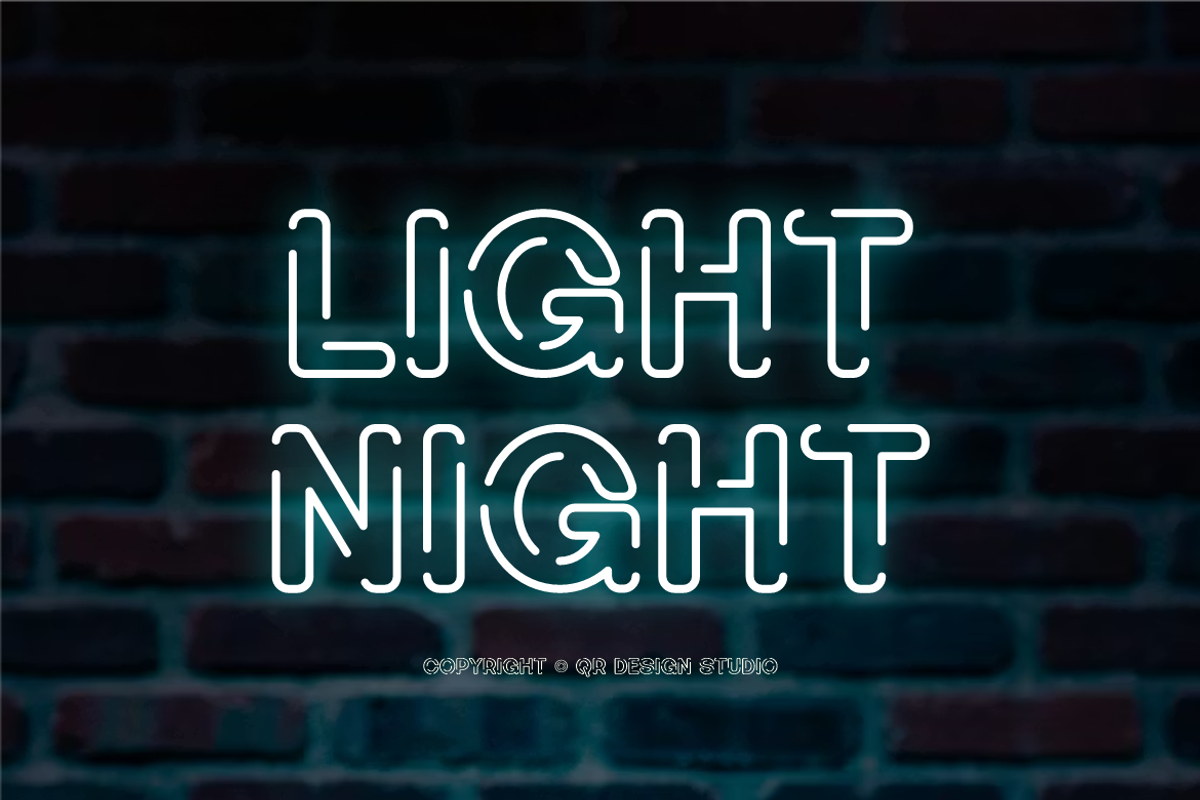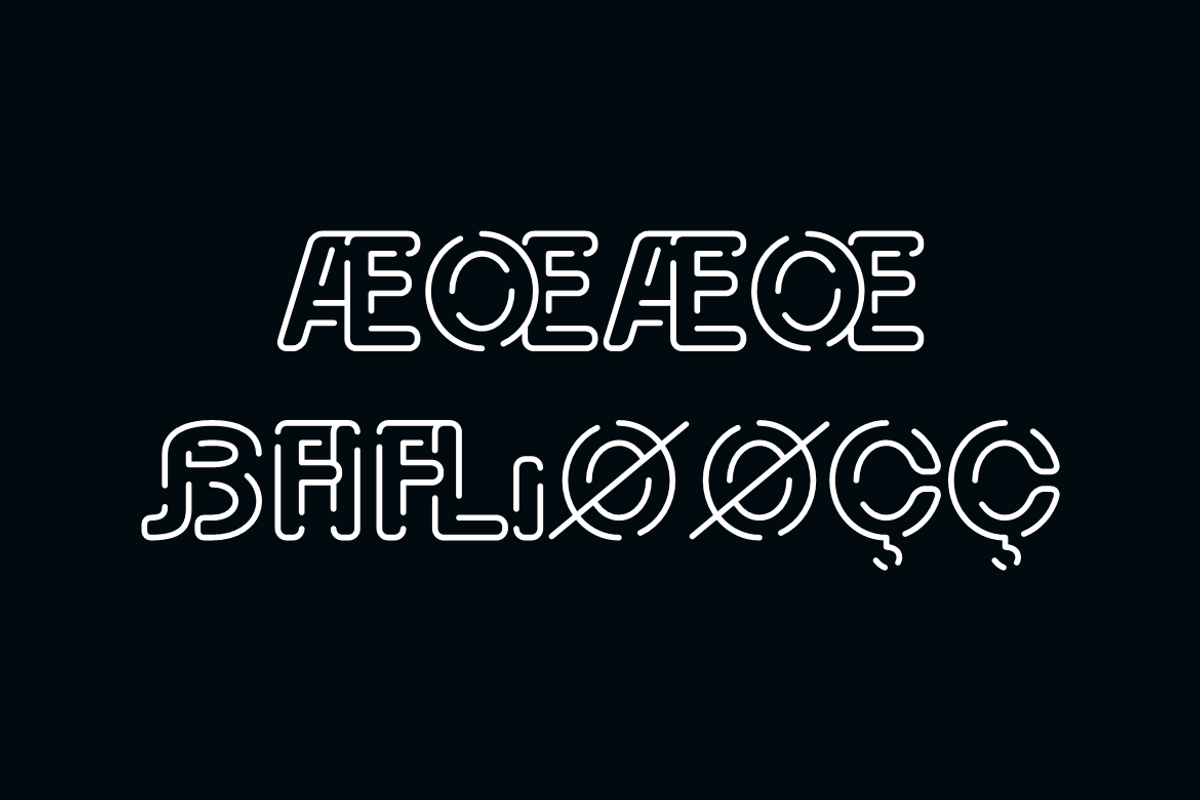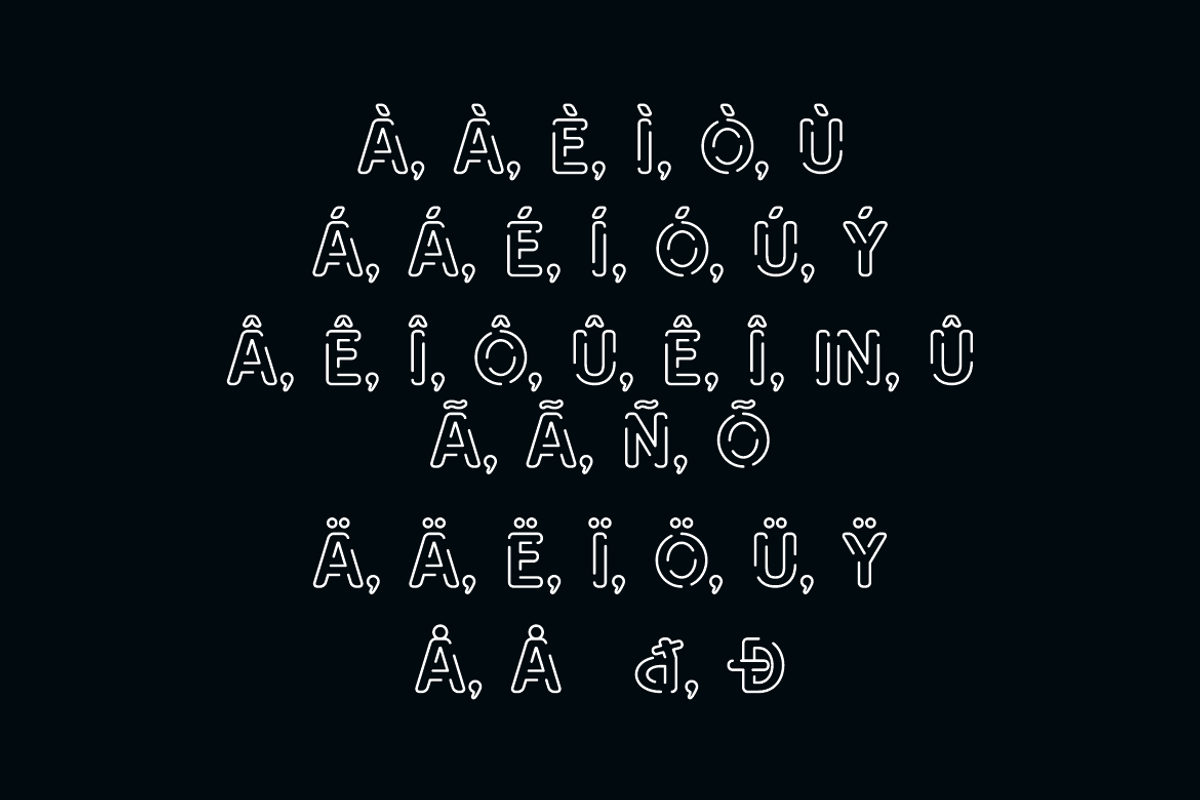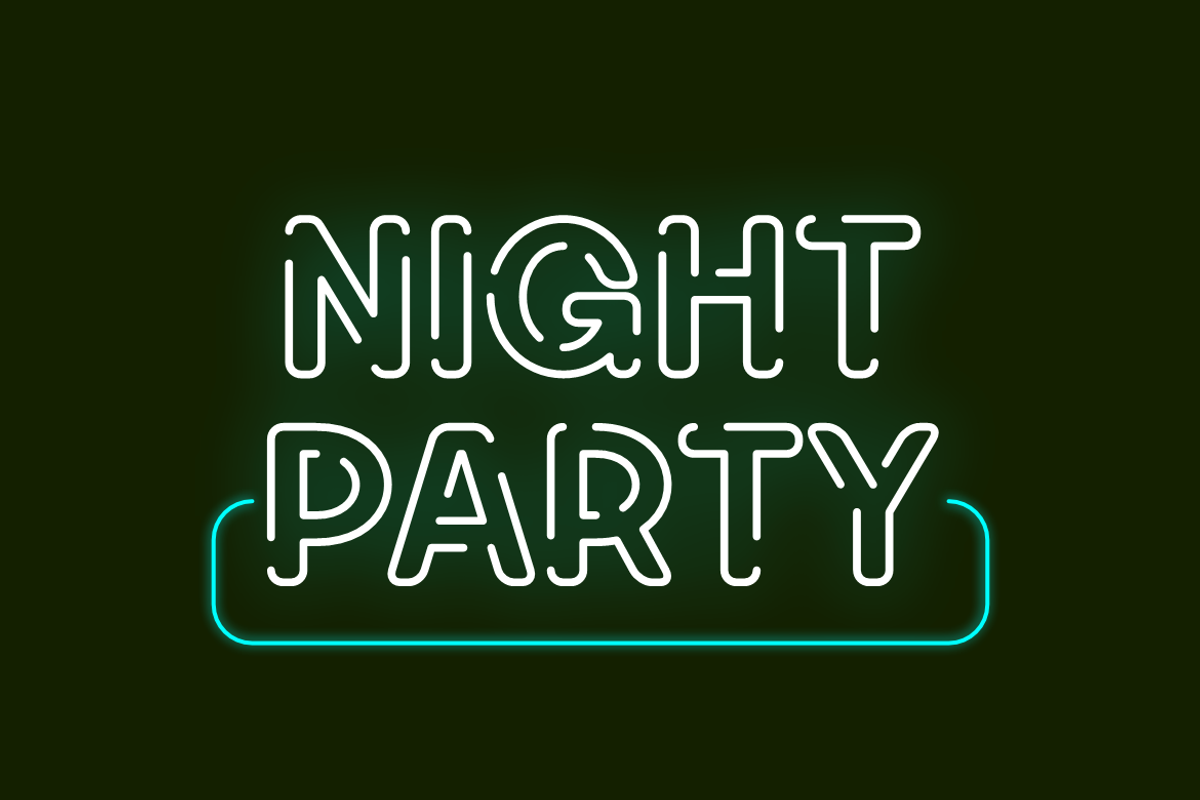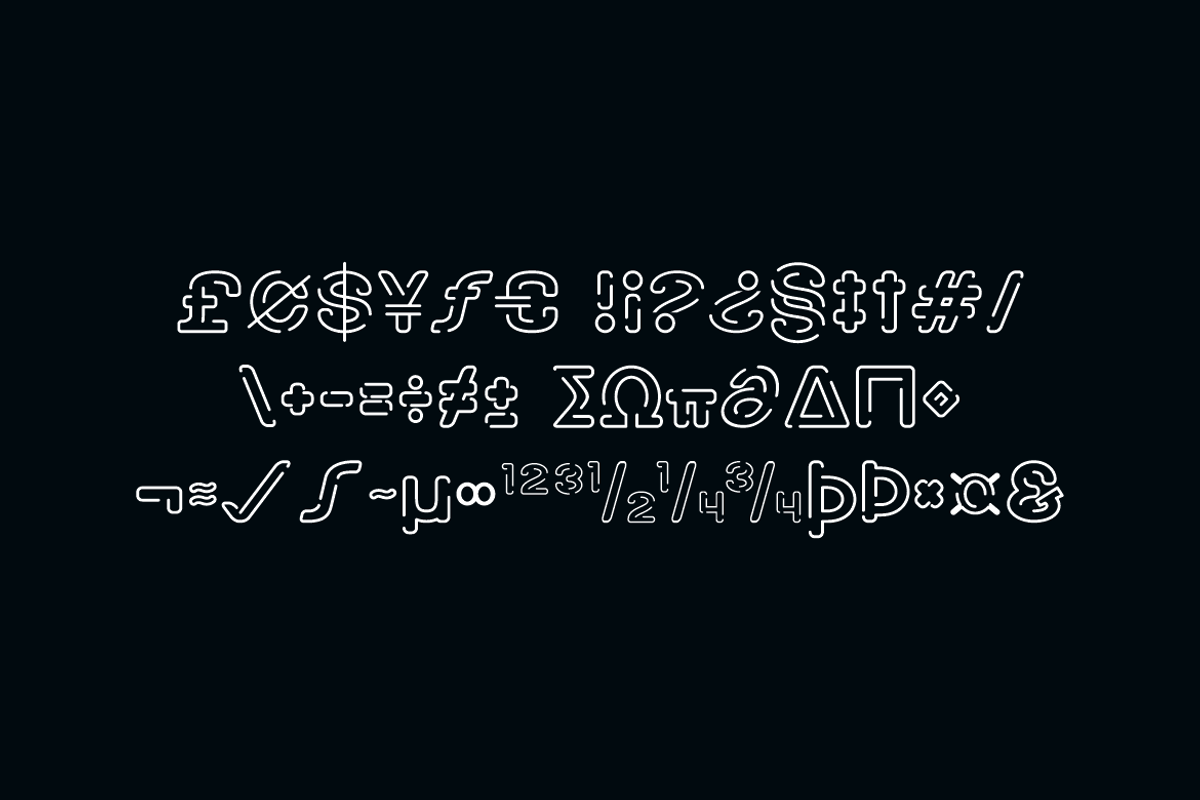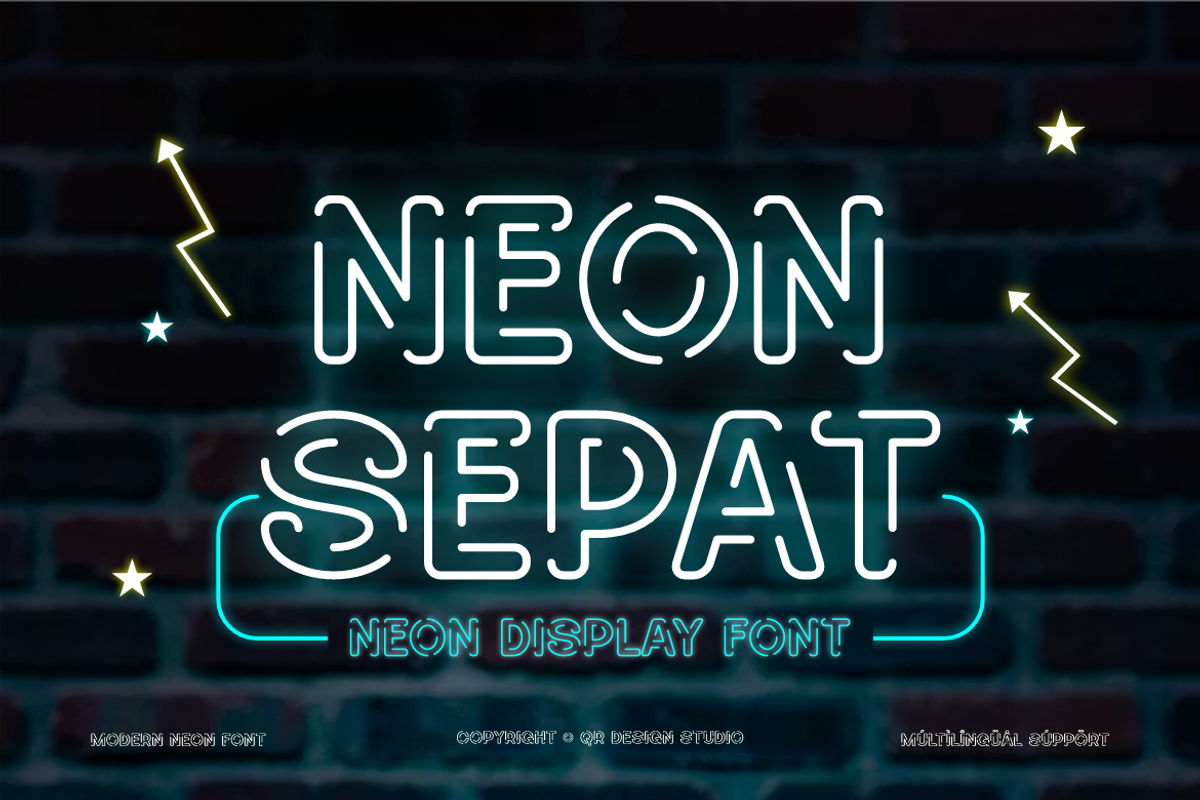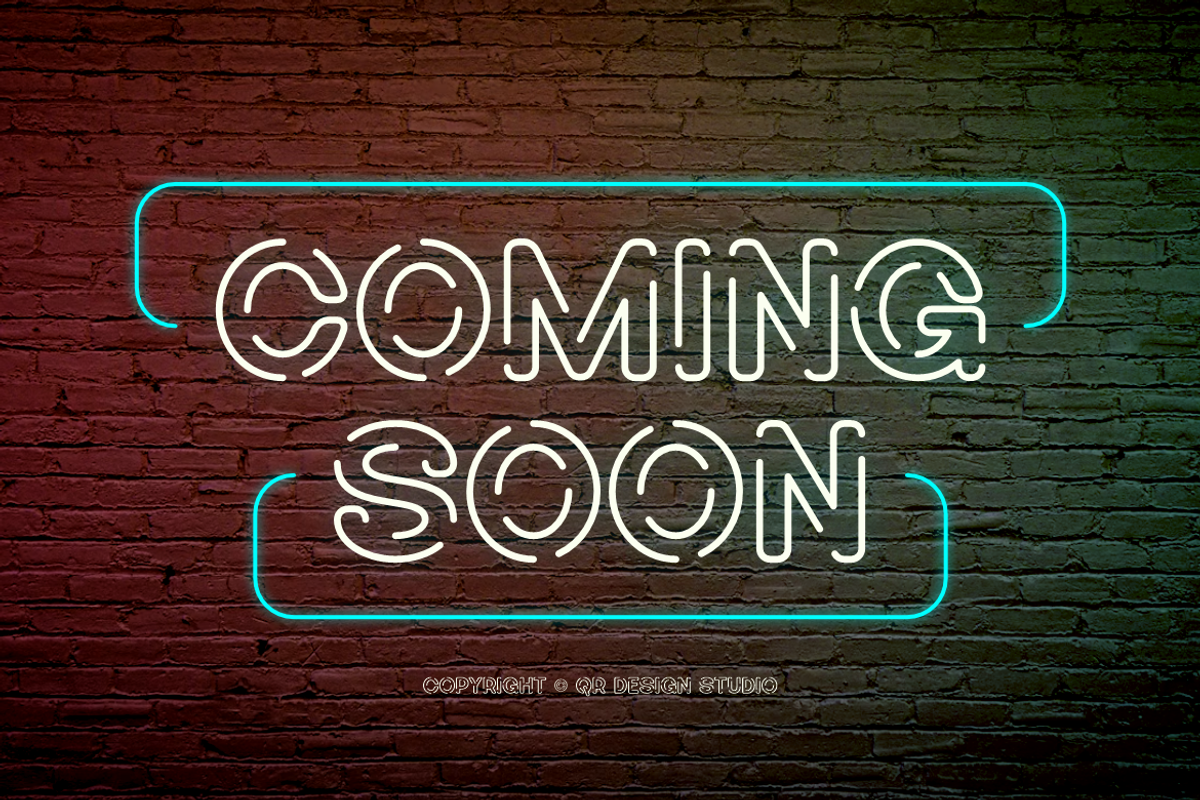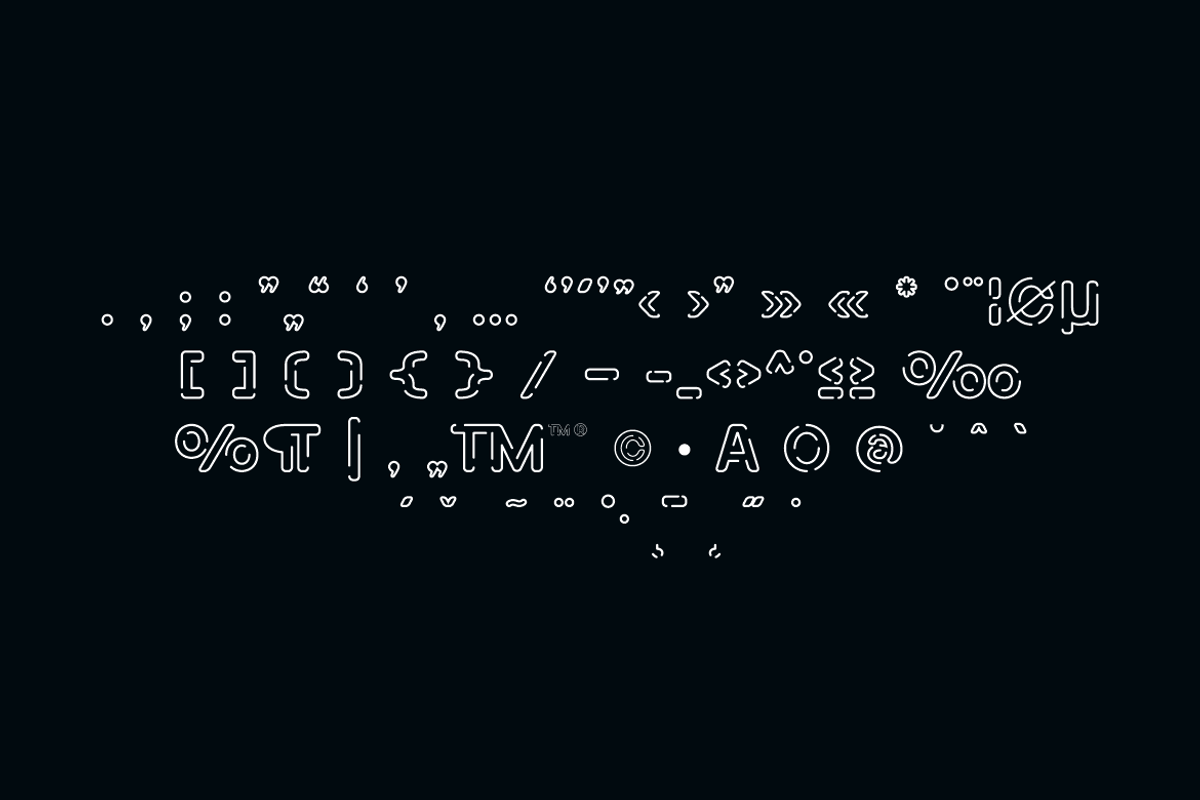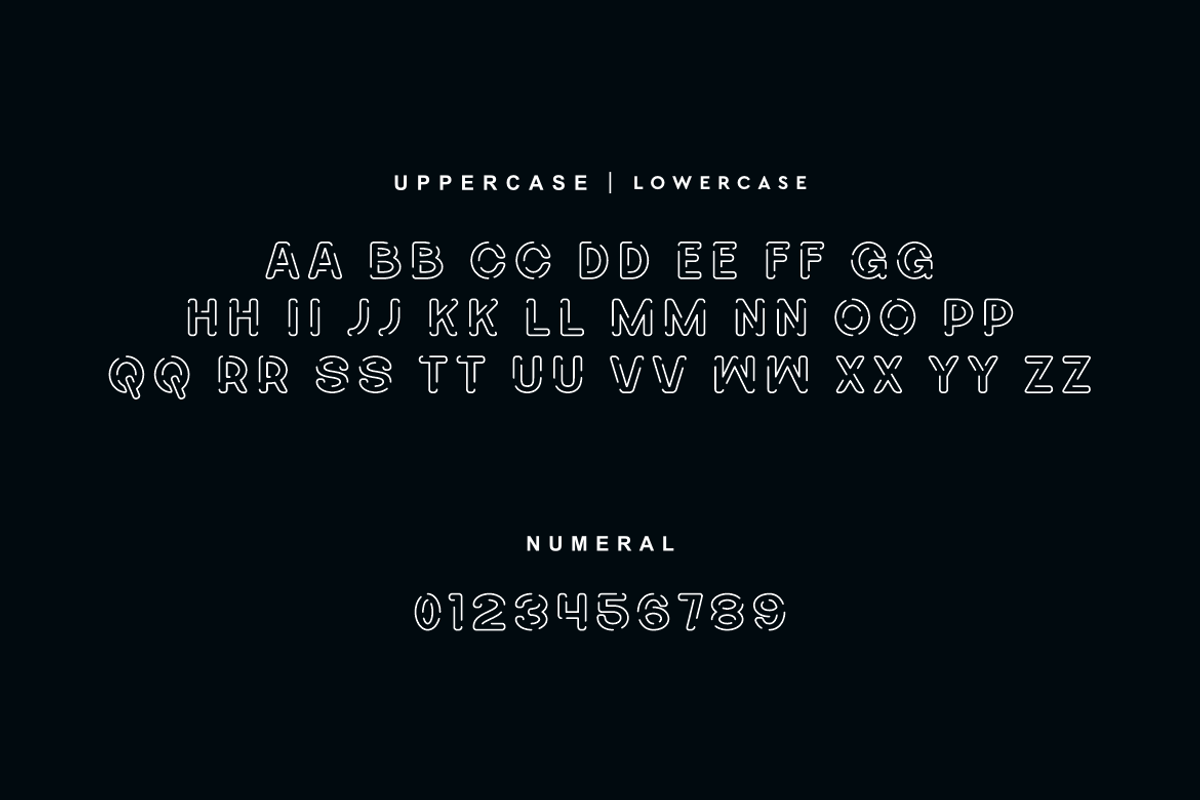
Neon Sepat - Light Party Font
Neon Sepat Font is a outlineand authentic display typeface. It’s perfect for various branding projects such as logos, poster designs, and more. This font stands out beautifully in a wide range of contexts.